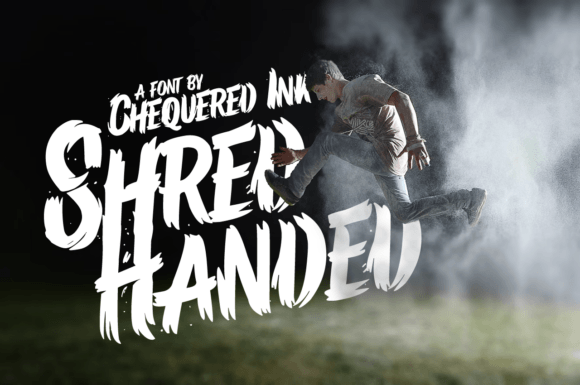
Shred Handed Font: Elevate Your Brand with a Unique, Hand-Crafted Look
In today’s competitive market, establishing a strong brand identity is crucial for businesses to stand out from the crowd. One of the key elements in creating a lasting impression is the visual appeal of your brand’s design. Whether you’re designing a logo, website, album cover, video game, or T-shirt, the font you choose can make all the difference. This is where the Shred Handed Font comes in – a meticulously crafted font that can give your brand that extra wow factor.
What is Shred Handed Font?
The Shred Handed Font is a unique, hand-crafted font designed by the skilled artists at Chequered Ink. Unlike machine-generated fonts, this font is carefully crafted to provide a distinctive, one-of-a-kind look that can elevate your brand’s visual identity. With its rugged, hand-crafted feel, the Shred Handed Font is perfect for businesses looking to add a personal touch to their designs.
Why Choose Shred Handed Font?
There are several reasons why the Shred Handed Font stands out from the rest:
- Unique Hand-Crafted Look: The Shred Handed Font is designed to provide a distinctive, hand-crafted look that sets your brand apart from others.
- Versatility: This font is suitable for a wide range of applications, including logos, websites, album covers, video games, T-shirts, and more.
- Attention to Detail: The Shred Handed Font is meticulously crafted to ensure that every letter, curve, and line is perfect, giving your brand a professional and polished look.
- Emotional Connection: The hand-crafted feel of this font can help create an emotional connection with your customers, making your brand more relatable and memorable.
Endless Design Possibilities
The Shred Handed Font can be used in a variety of design applications, including:
- Logo Design: Create a unique and memorable logo that reflects your brand’s personality and values.
- Website Design: Add a personal touch to your website’s typography and make it stand out from the competition.
- Album Cover Design: Give your music a professional and eye-catching look with a custom-designed album cover featuring the Shred Handed Font.
- Video Game Design: Create a immersive gaming experience with a font that adds a touch of personality to your game’s UI and marketing materials.
- T-Shirt Design: Create custom apparel that stands out from the crowd with a unique and eye-catching design featuring the Shred Handed Font.
Hand-Crafted vs. Machine-Generated Fonts
When it comes to choosing a font for your brand, you may be tempted to opt for a machine-generated font. However, there are several reasons why a hand-crafted font like Shred Handed Font is a better choice:
- Uniqueness: Machine-generated fonts can look generic and lack personality. A hand-crafted font, on the other hand, is unique and can be tailored to your brand’s specific needs.
- Quality: Hand-crafted fonts are typically of higher quality than machine-generated fonts, with attention to detail and a focus on aesthetics.
- Emotional Connection: A hand-crafted font can help create an emotional connection with your customers, making your brand more relatable and memorable.
Meet the Designers: Chequered Ink
At Chequered Ink, our team of skilled designers are passionate about creating unique and hand-crafted fonts that can help elevate your brand’s visual identity. With years of experience in the design industry, our team has honed their skills to provide high-quality fonts that meet the needs of businesses and designers alike.
In today’s competitive market, establishing a strong brand identity is crucial for businesses to stand out from the crowd. The Shred Handed Font is a unique and hand-crafted font that can give your brand that extra wow factor. With its rugged, hand-crafted feel and versatility, this font is perfect for businesses looking to add a personal touch to their designs. Whether you’re designing a logo, website, album cover, video game, or T-shirt, the Shred Handed Font is the perfect choice.